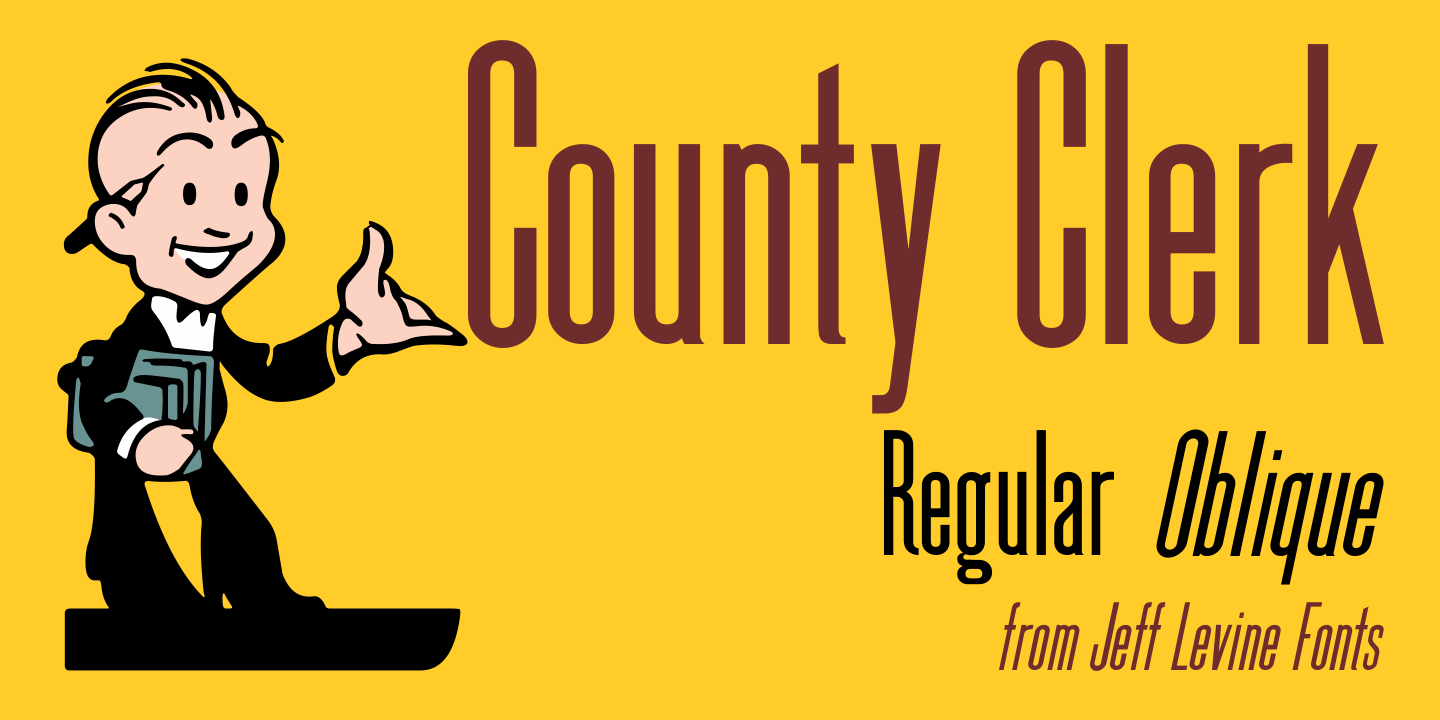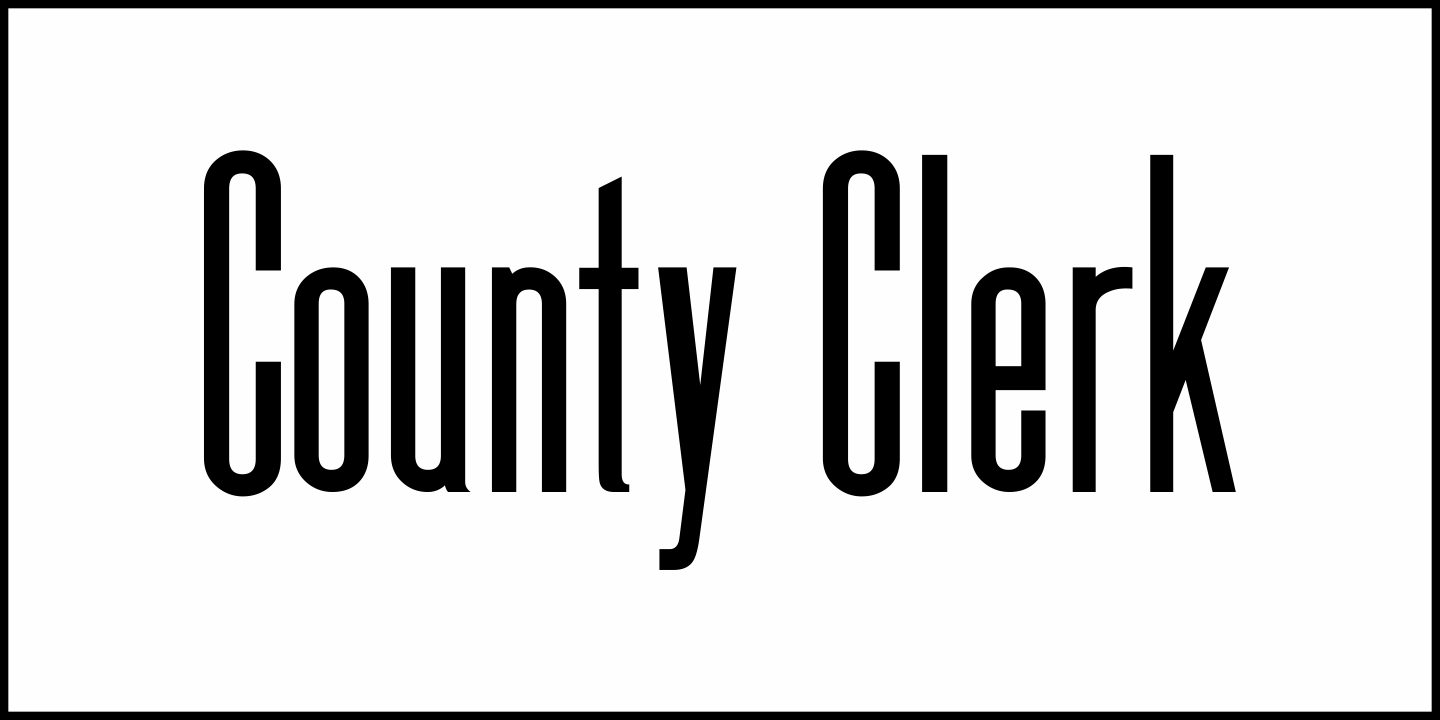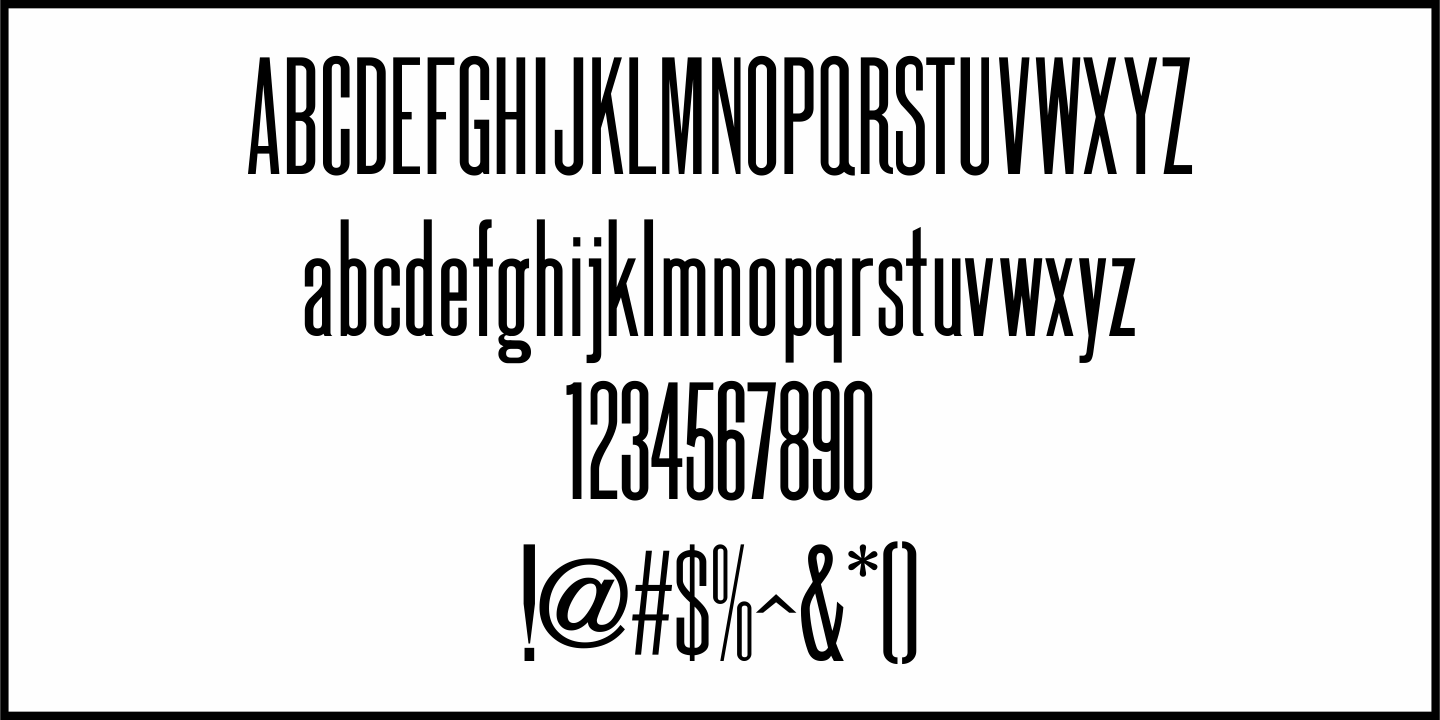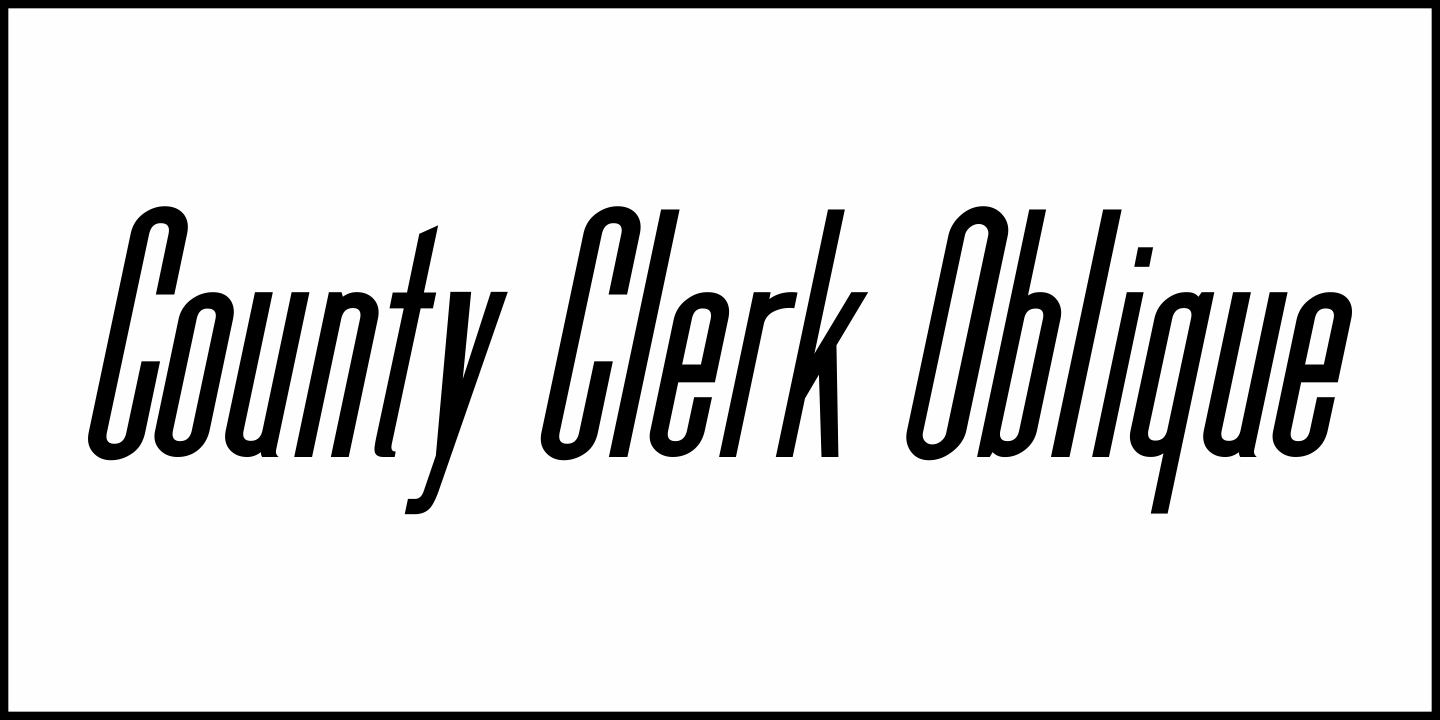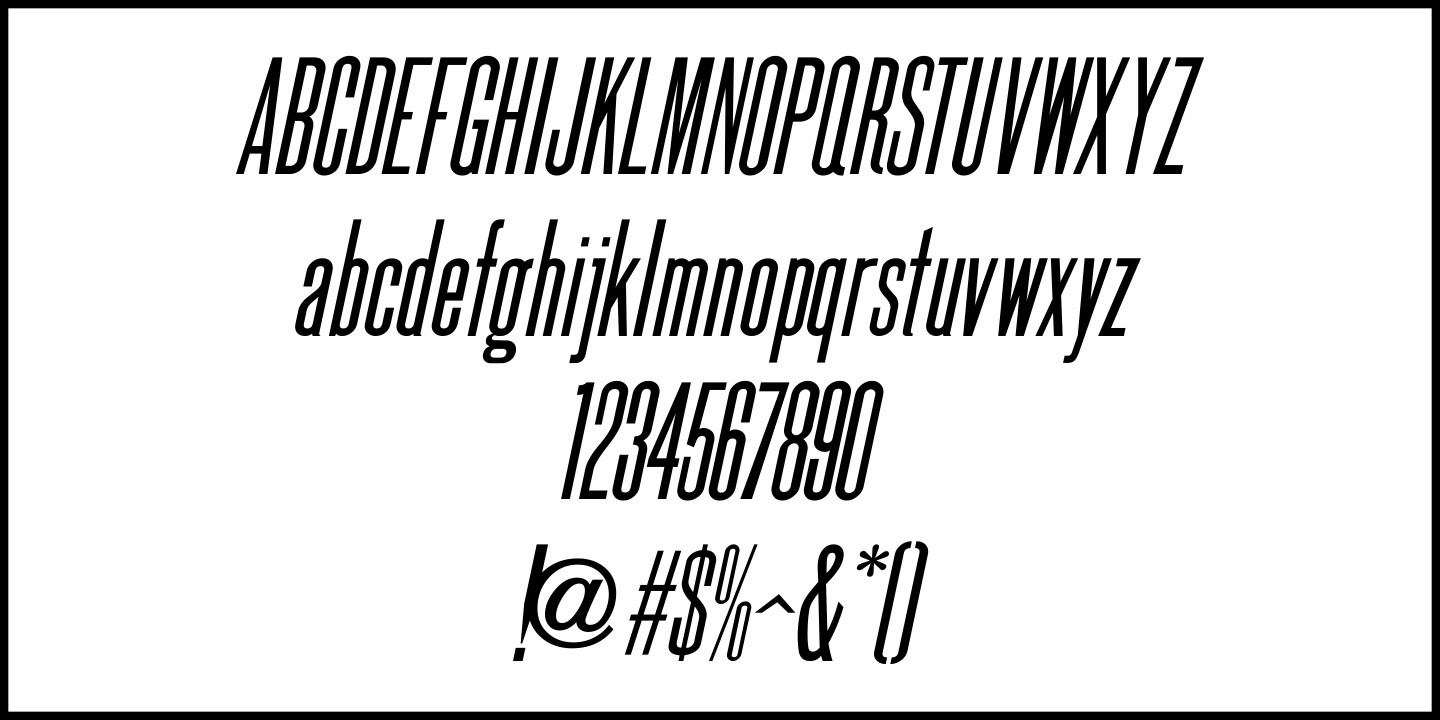
County Clerk
County Clerk JNL was modeled after the vintage Hamilton wood type design Gothic Special, and is available in both regular and oblique versions.
An early grotesk font, this condensed sans serif lends itself well to short headlines and brief body copy.